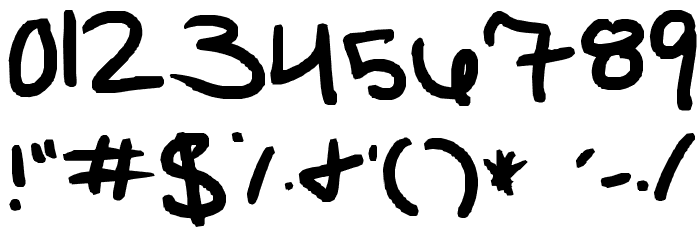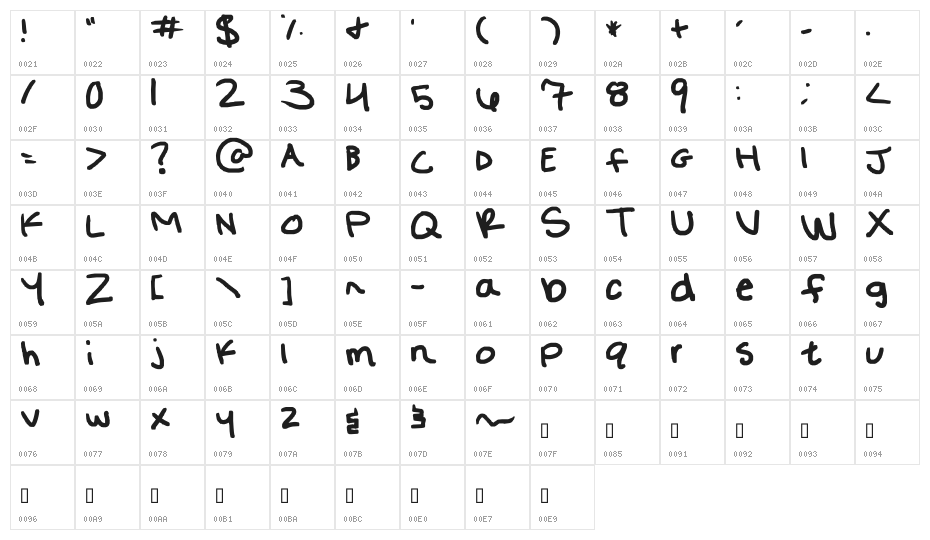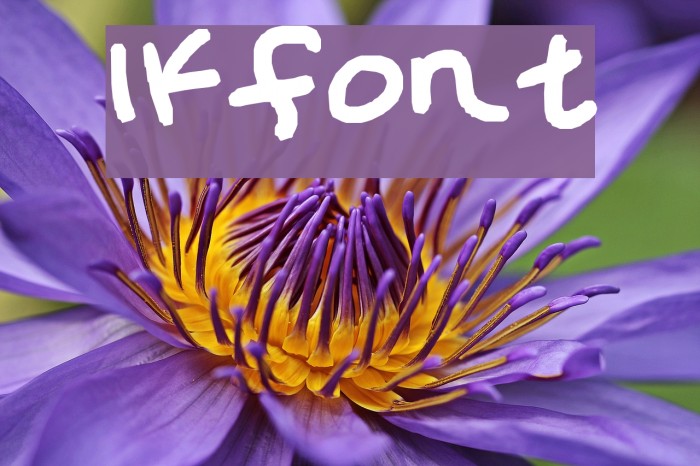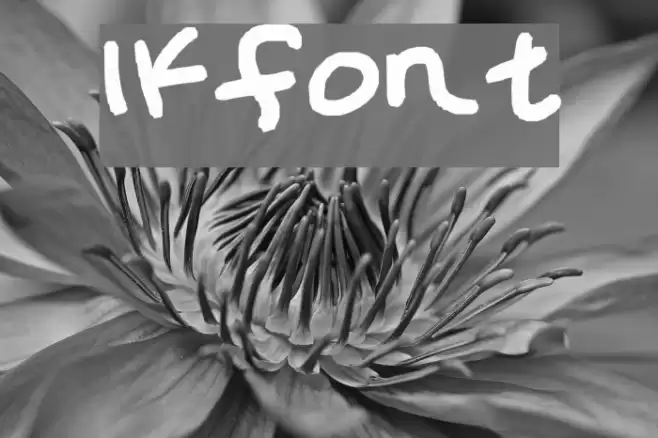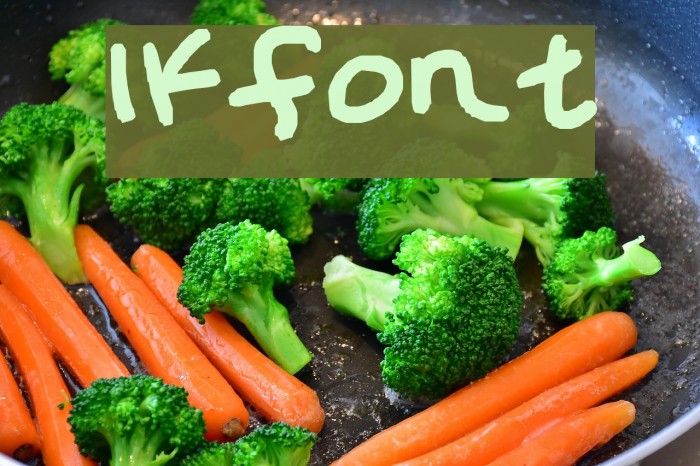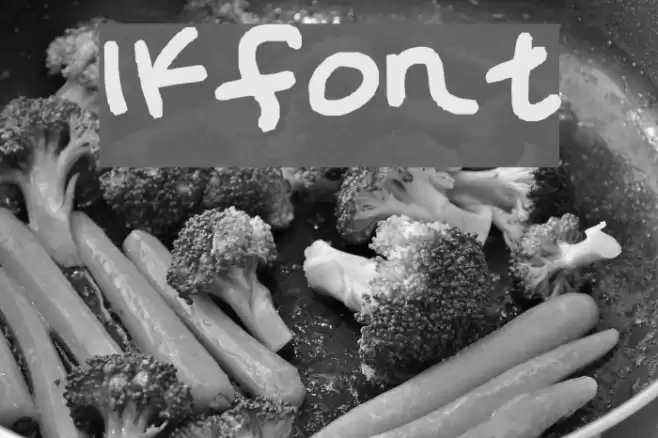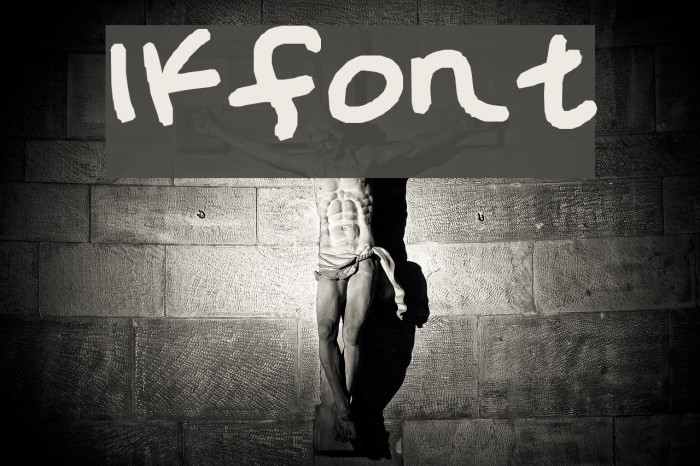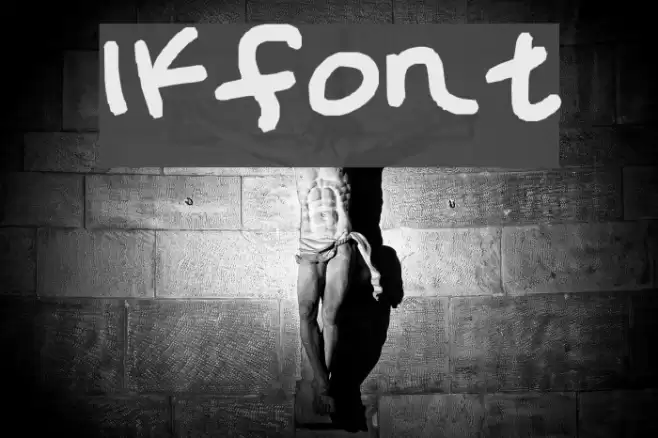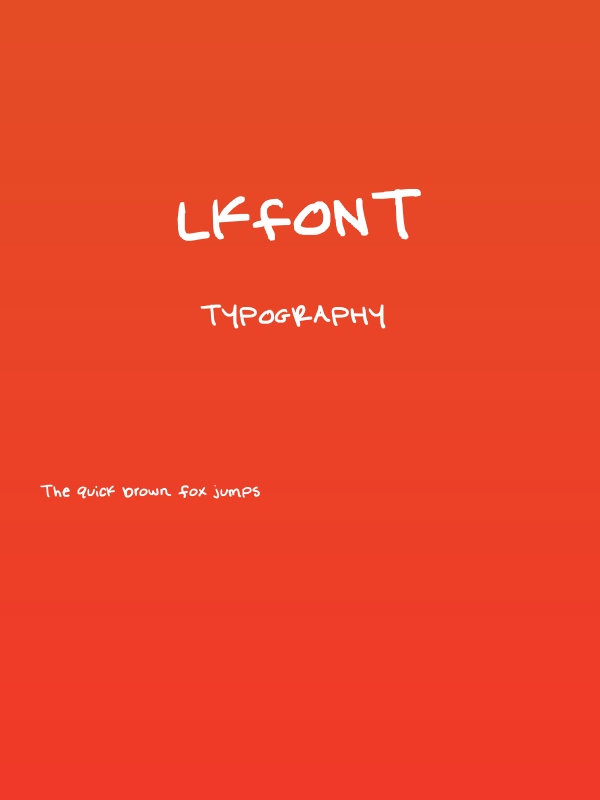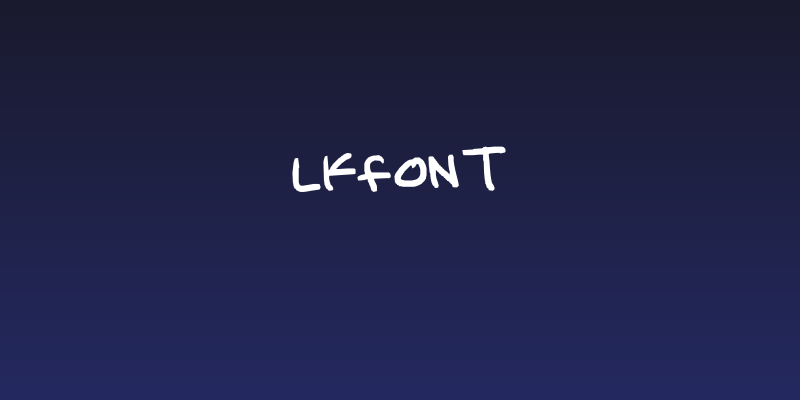
lkfont Font
This font exhibits a playful and casual handwritten style, characterized by its bold and slightly irregular strokes. The letters are rounded and have a friendly, approachable appearance, making them suitable for informal and creative projects. The uppercase and lowercase letters maintain a consistent style, with a slight tilt that adds to the dynamic feel of the font. The numbers and special characters are designed to match the overall aesthetic, ensuring a cohesive look across all text elements. The font's boldness and unique character shapes make it stand out, while its legibility remains intact.
Overall StyleCasual, Playful
Use CaseLogos, Headlines, Informal Text
Proposed ProjectsIdeal for greeting cards, children's books, playful branding, and social media graphics.